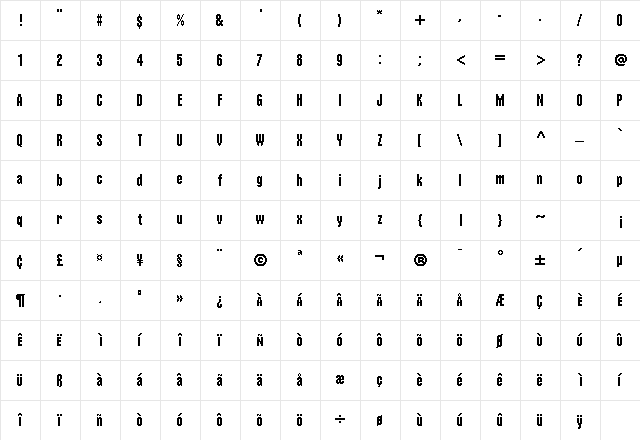
Nu World Tight Regular
Design Context for Nu World Tight Typeface
Nu World Tight takes a measured approach to typography — its balanced proportions and neutral character make it a reliable workhorse for both digital and print work.